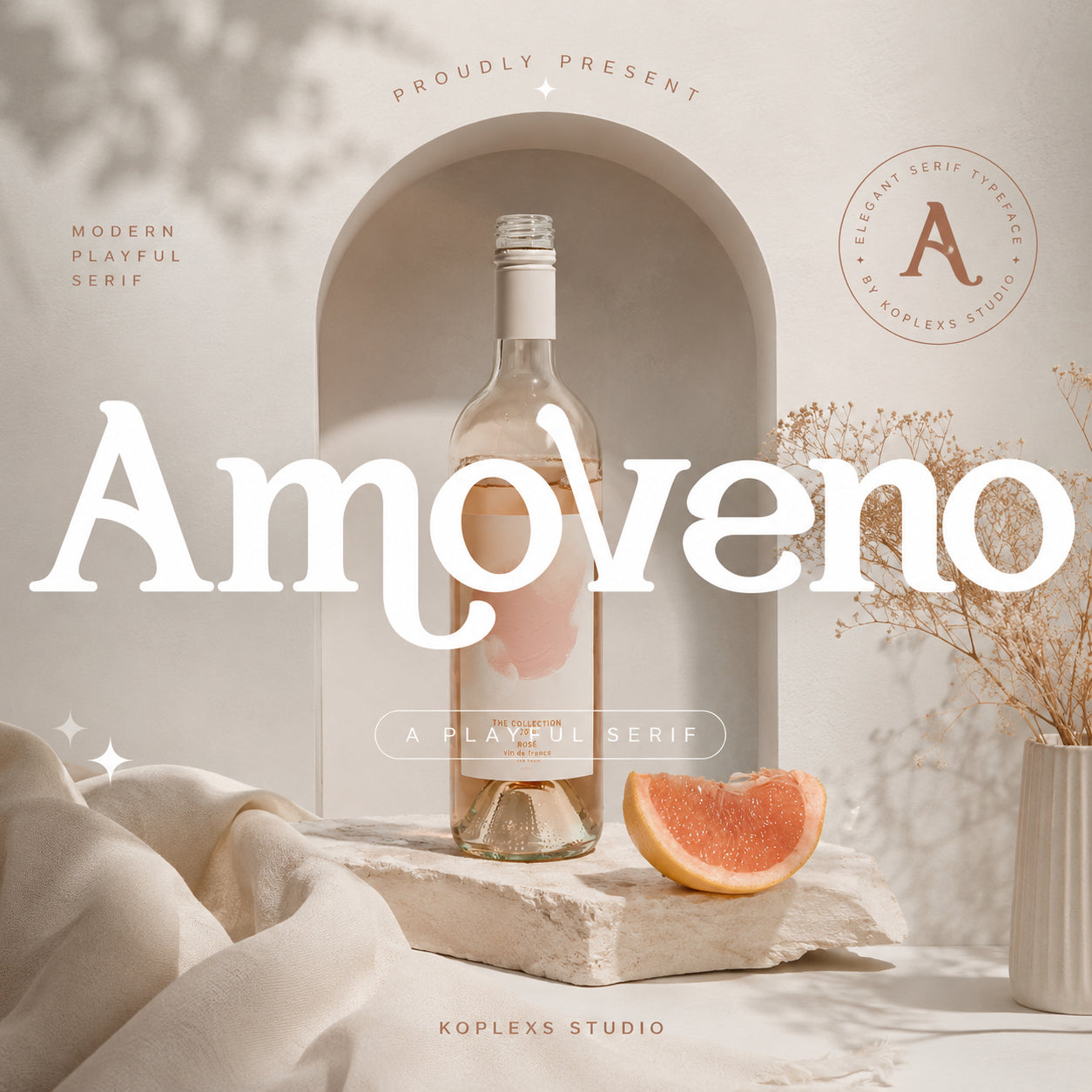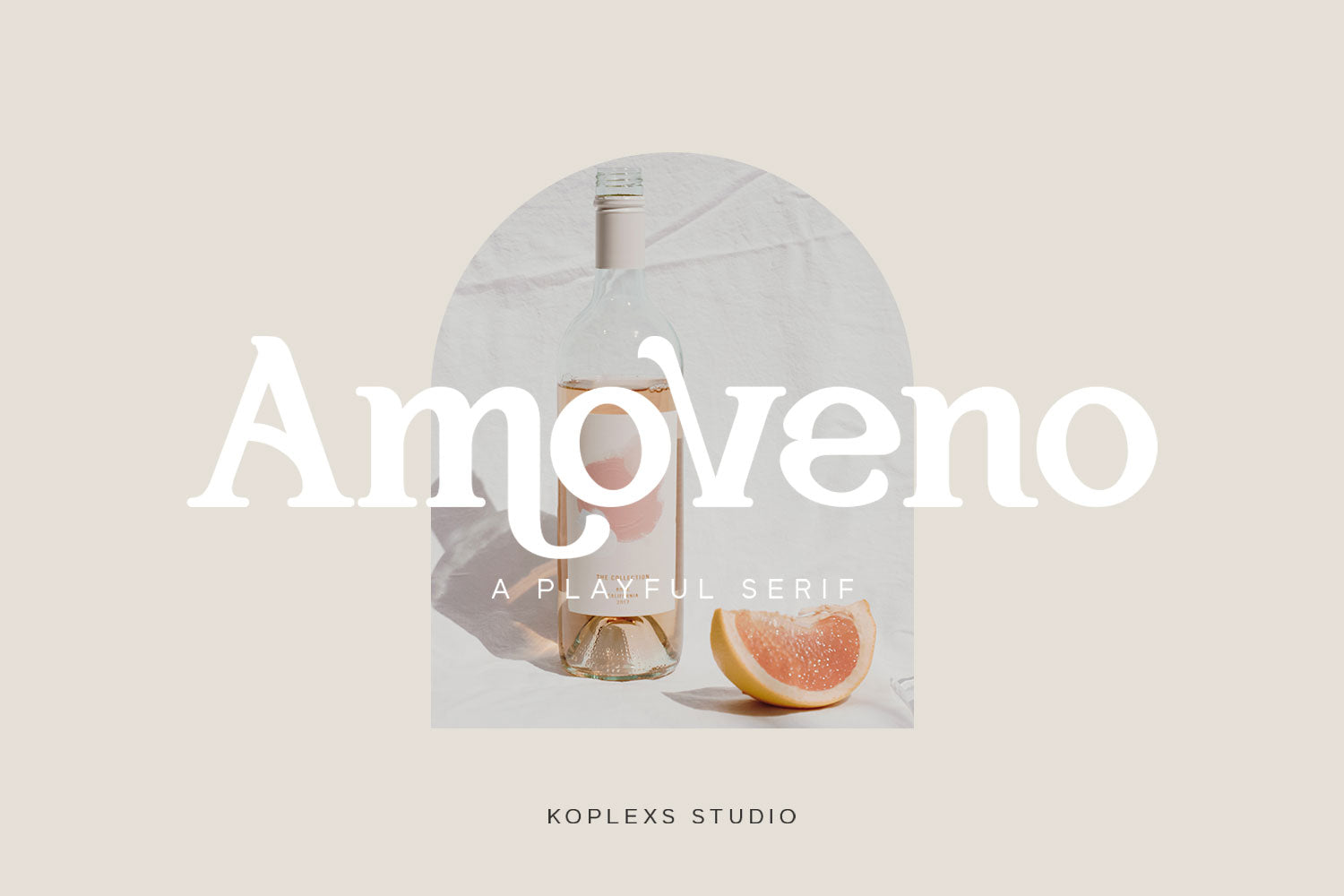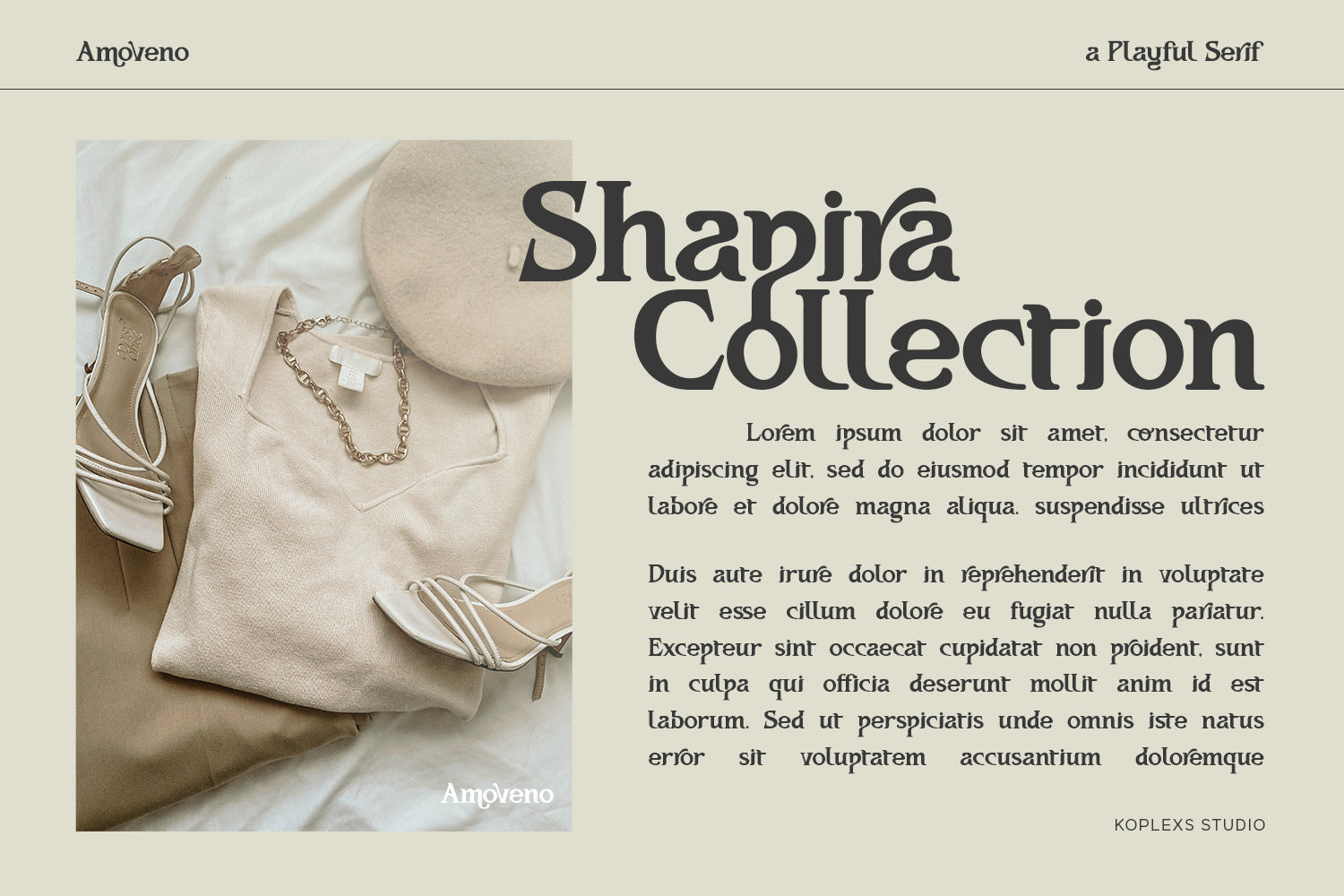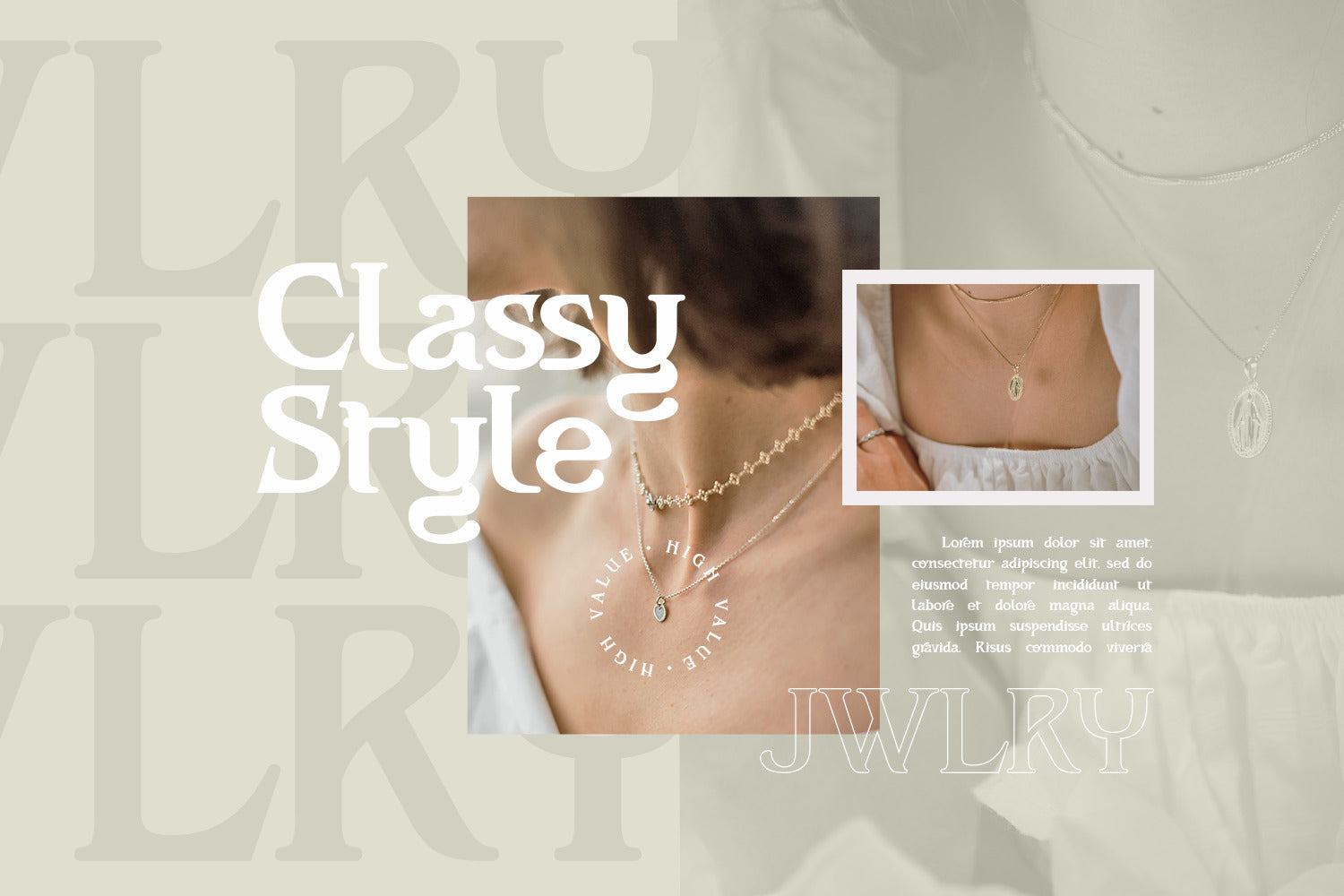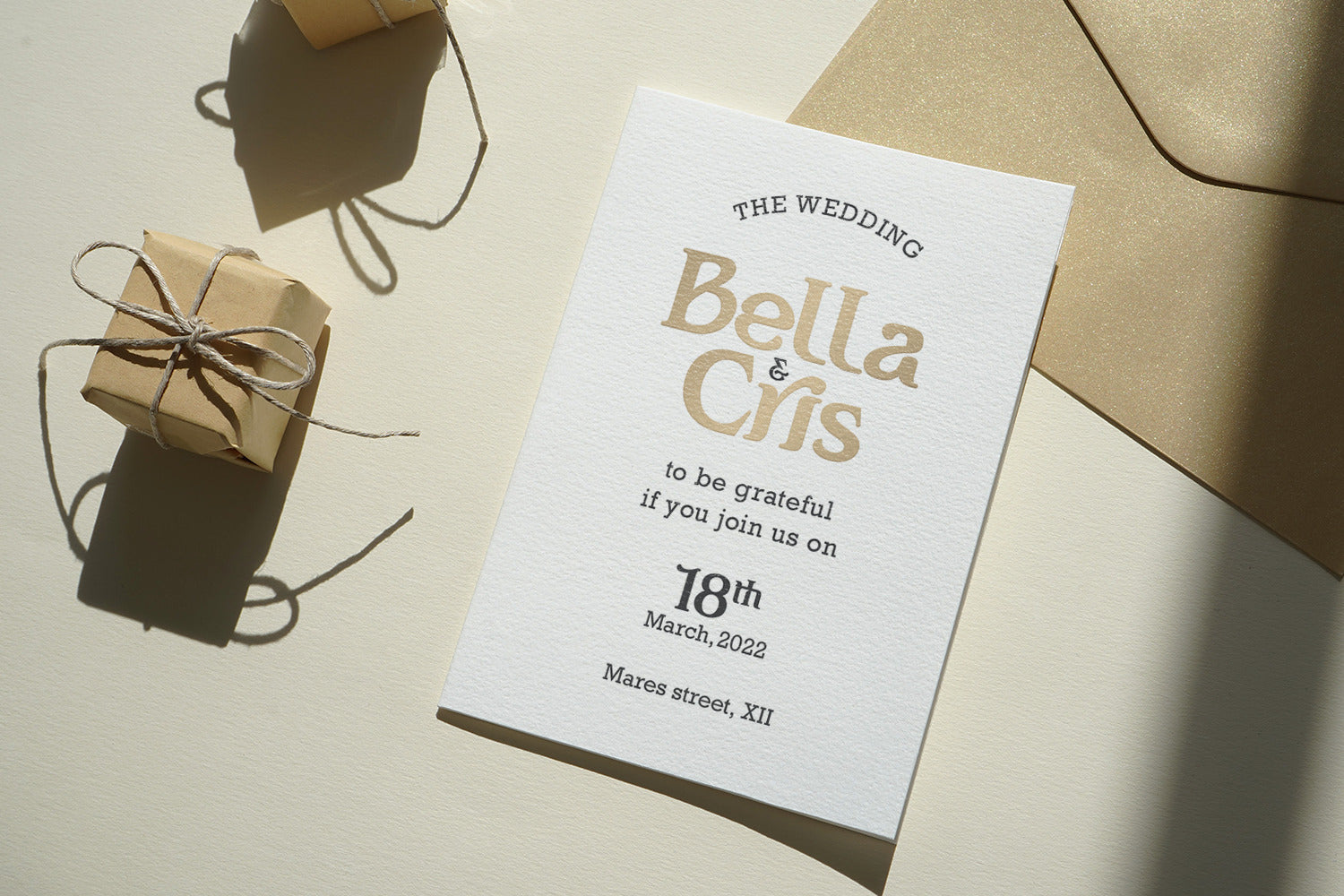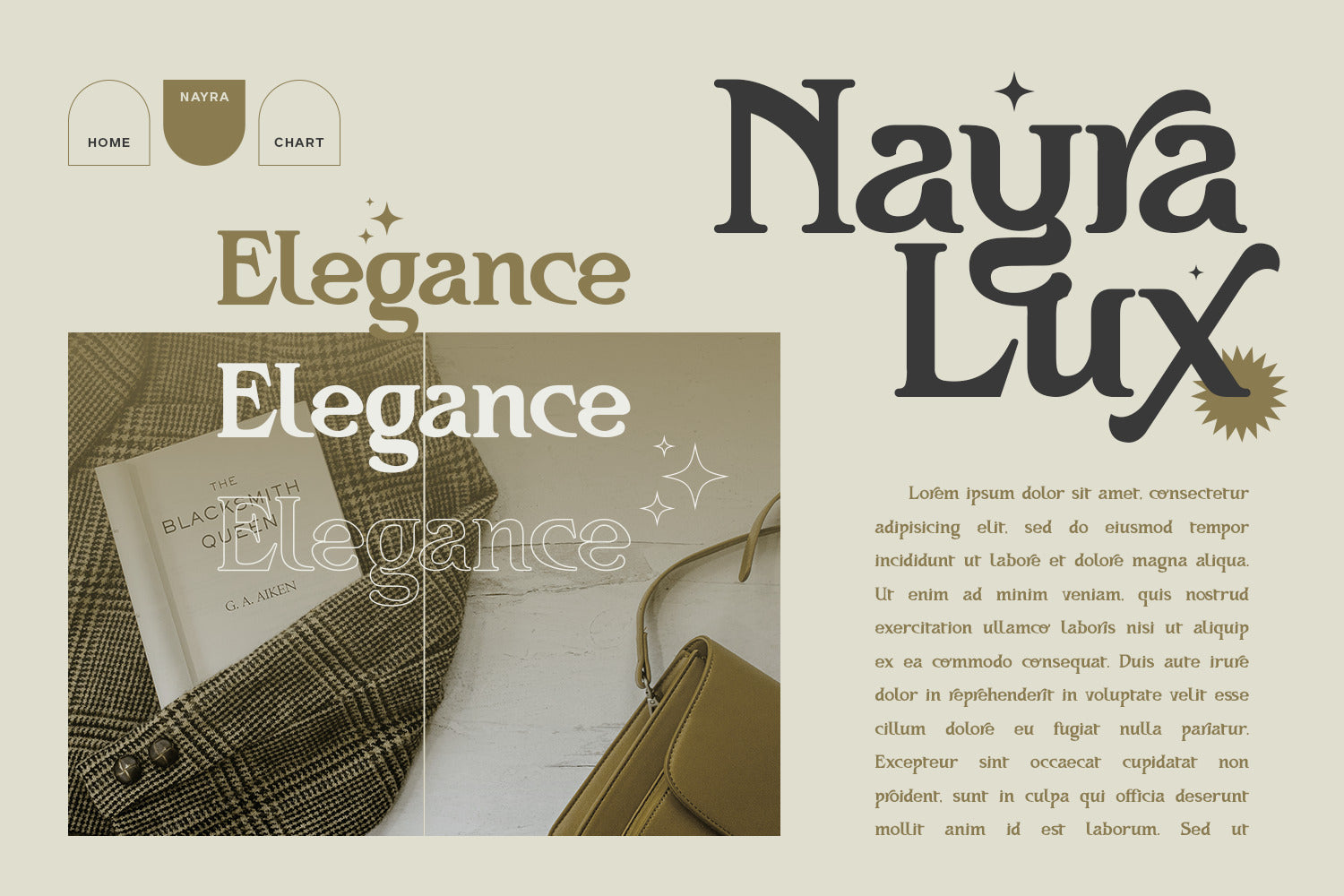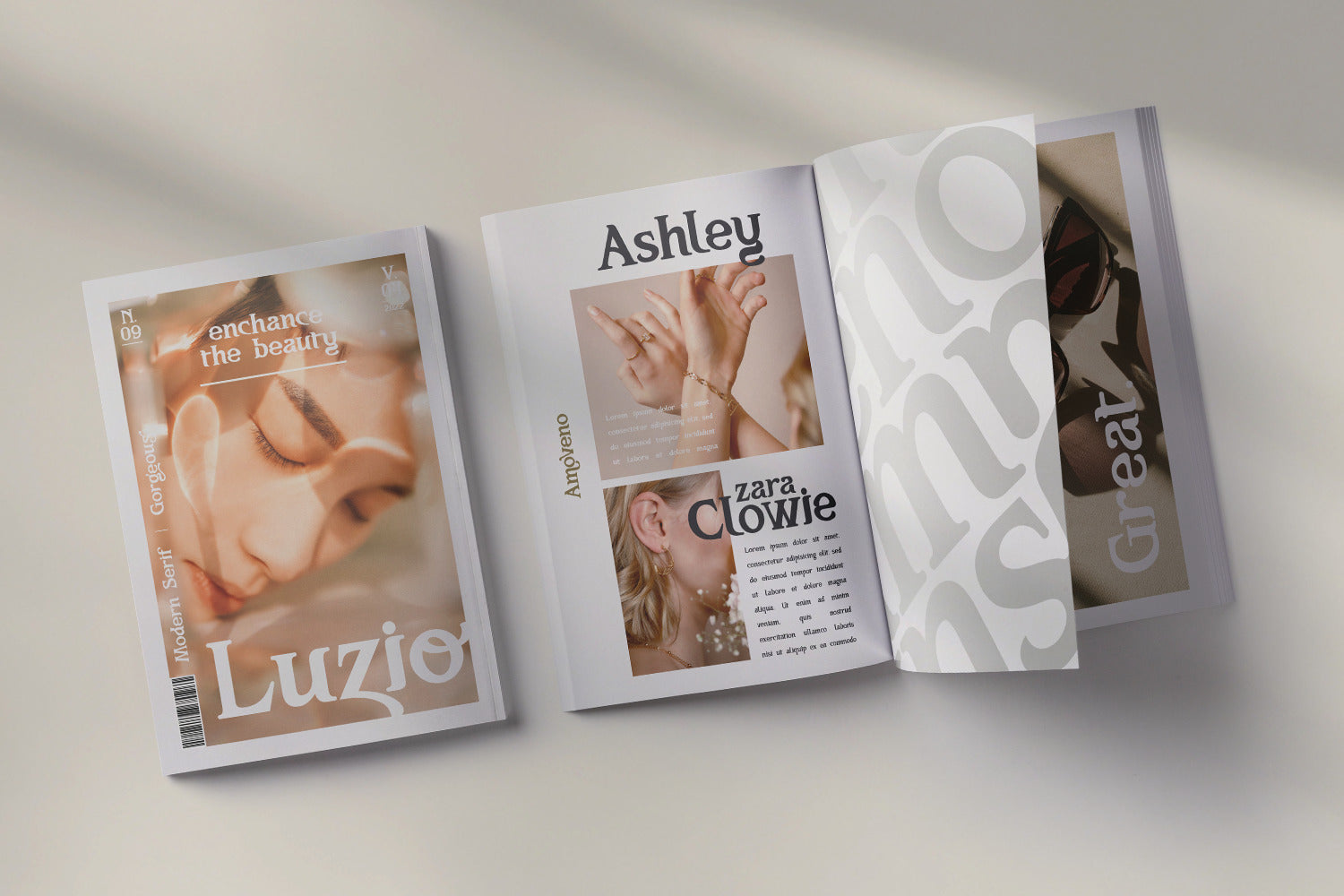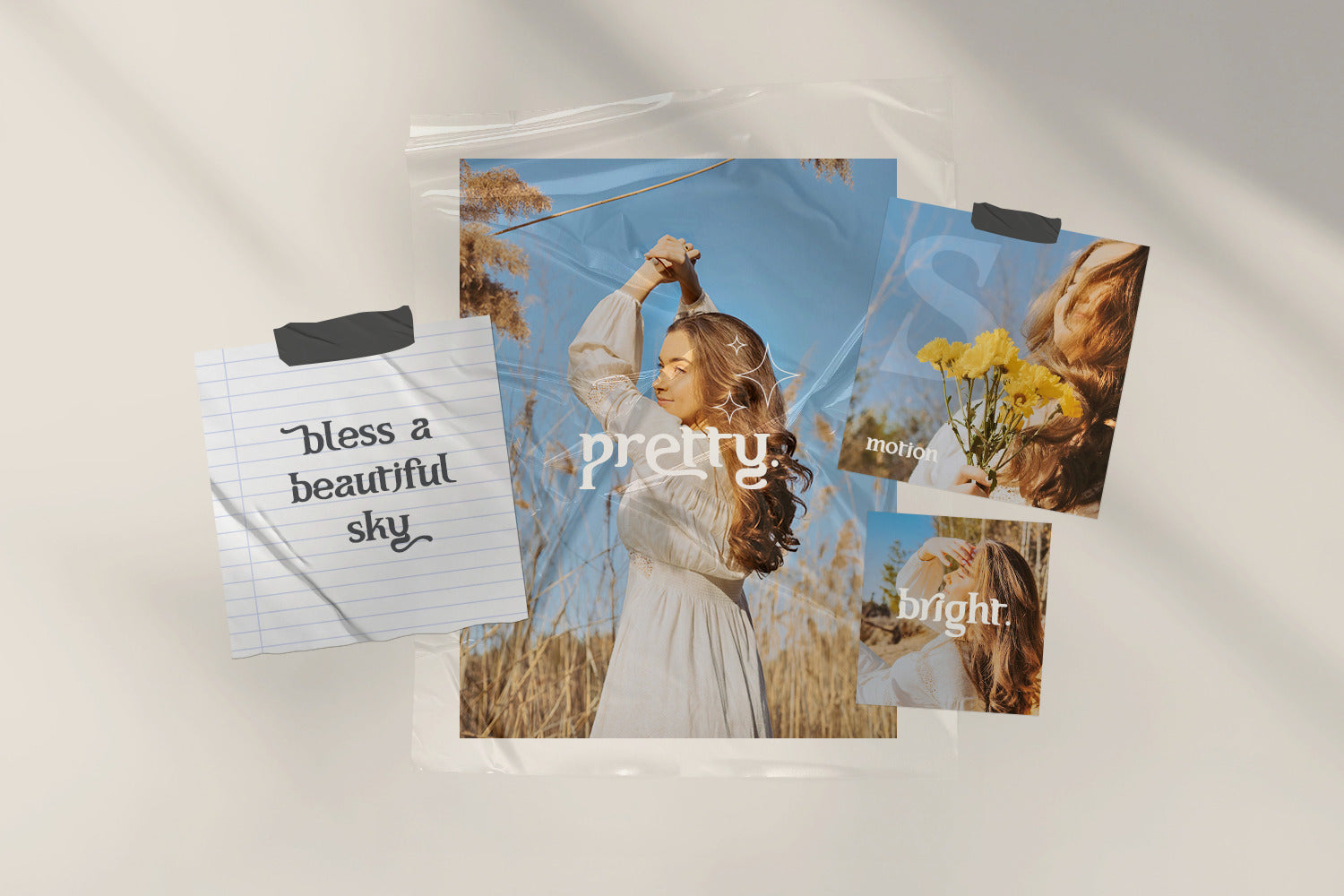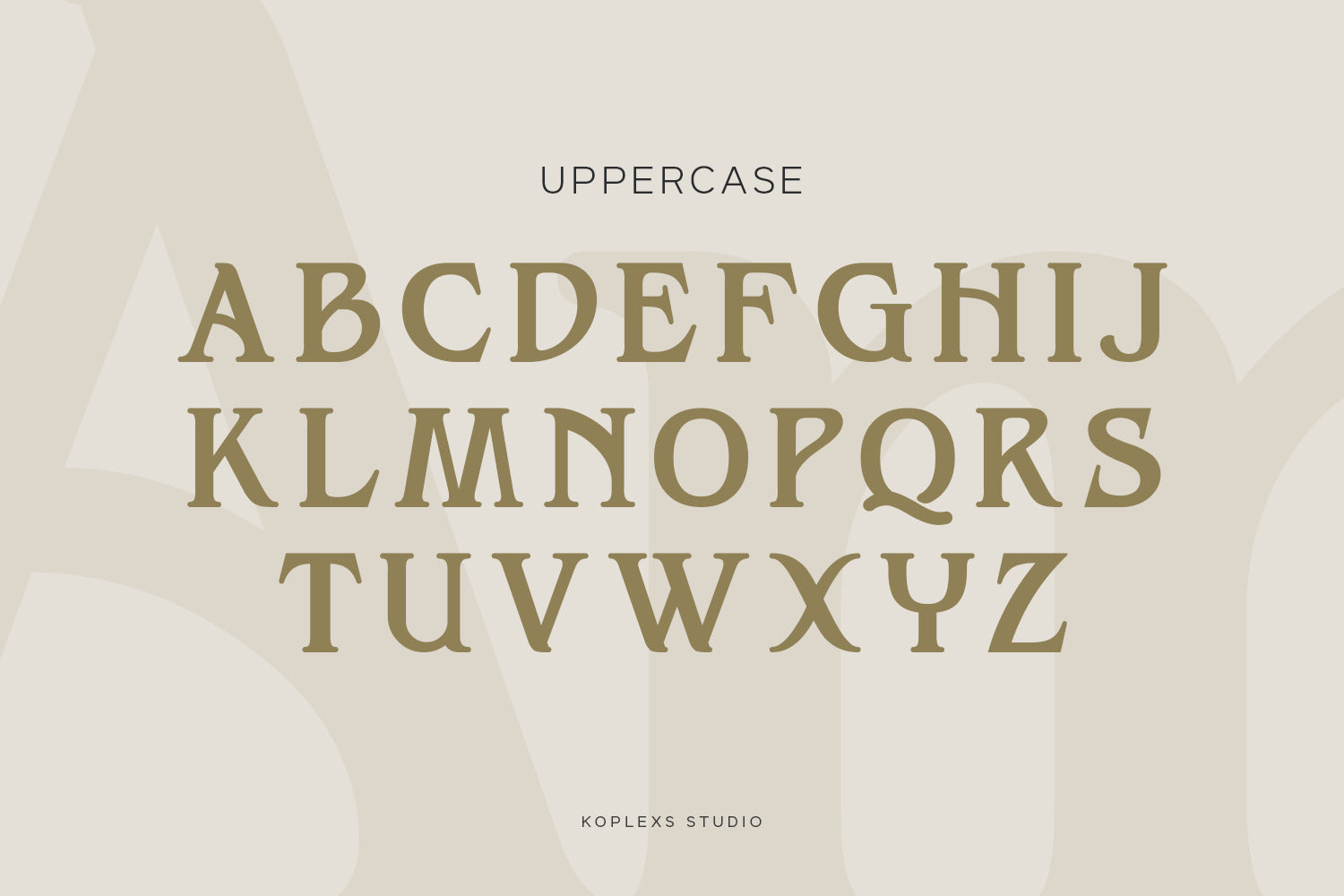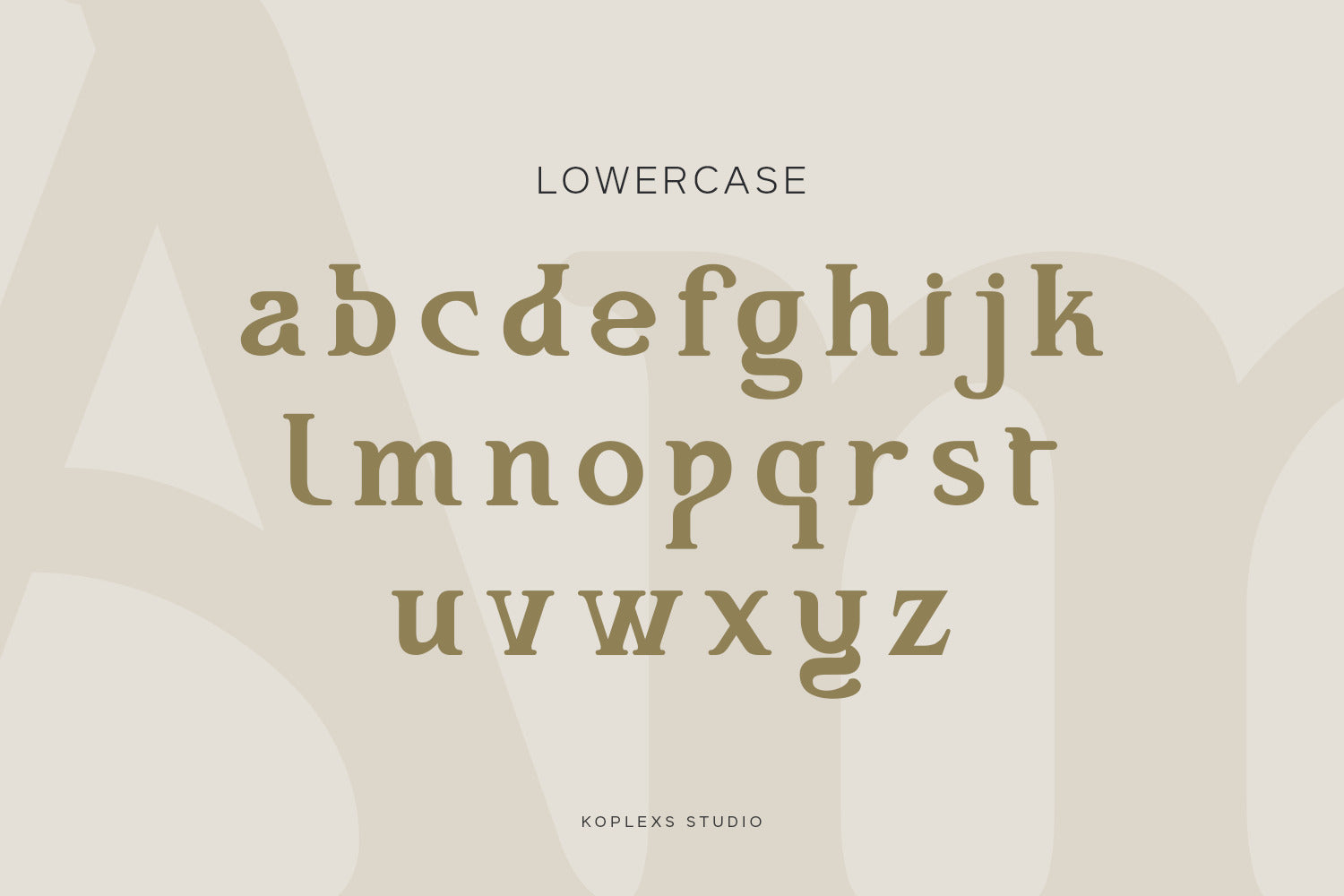
Amoveno Font – Modern Serif Font
Amoveno Font – Modern Serif Font for Luxury Branding, Wedding Logo & Elegant Display Design
Amoveno Font is a beautifully crafted Serif font with a modern, playful, and elegant personality. Designed for creatives who need typography that feels luxurious, stylish, and memorable, Amoveno Font combines classic serif charm with contemporary display details. Its soft curves, unique letter shapes, and refined contrast make it a perfect choice for high-end branding, editorial layouts, product packaging, wedding stationery, and visual identity design.
This modern font is made to stand out. Whether you are creating a logo for a beauty brand, a fashion campaign, a wedding invitation, a magazine headline, or a premium product label, Amoveno Font gives your design a polished and professional look. As a display font, it works best for titles, headers, short quotes, brand names, packaging text, posters, and social media graphics where strong visual impact is important.
Amoveno Font is also a great aesthetic font for designers who love elegant typography with a unique artistic touch. Its playful serif style makes it feel fresh and expressive, while the classic structure keeps it timeless and readable. This balance makes Amoveno Font suitable for both modern and vintage-inspired design concepts.
Amoveno Font is a modern serif font designed for luxury branding and elegant display design. With its unique letter shapes and refined contrast, it is suitable for a variety of applications including logos, headlines, and packaging, offering a polished and professional appearance.